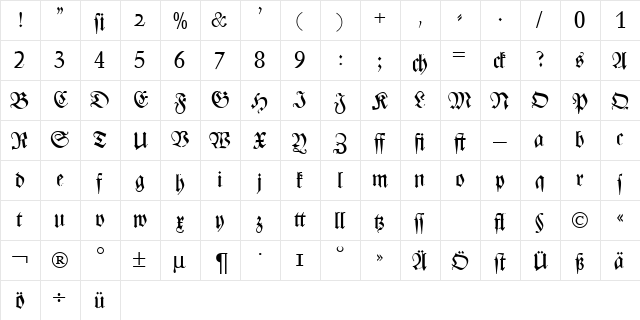
ZenithFraktur DB Regular
Design Context for ZenithFraktur DB Typeface
ZenithFraktur DB channels the dramatic heritage of Fraktur and Gothic scripts, bringing a sense of historical gravitas to any design.
A natural fit for music packaging, gothic editorial design, and any project that needs historical weight.
Font Pairing: Pair with a clean neutral sans-serif for body copy to let ZenithFraktur DB's character lead without overwhelming the composition.
Pro Tip: Reserve ZenithFraktur DB for display and logo use — pair it with a clean sans-serif for body copy to prevent the composition from feeling oppressive.